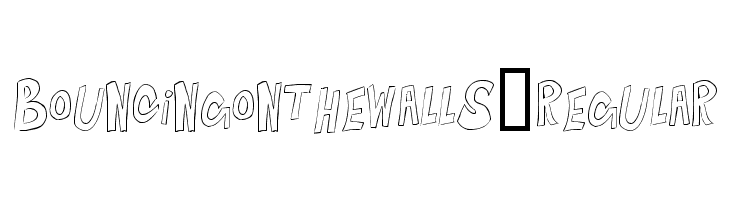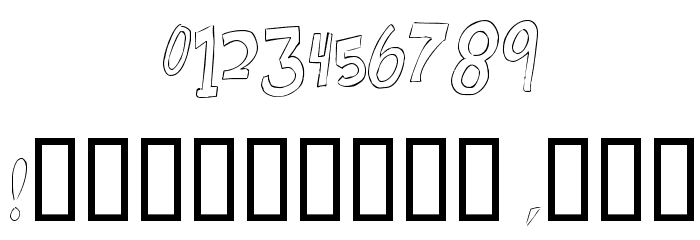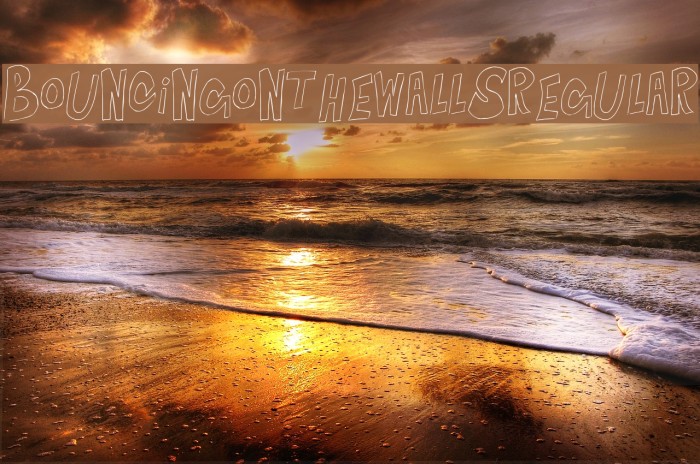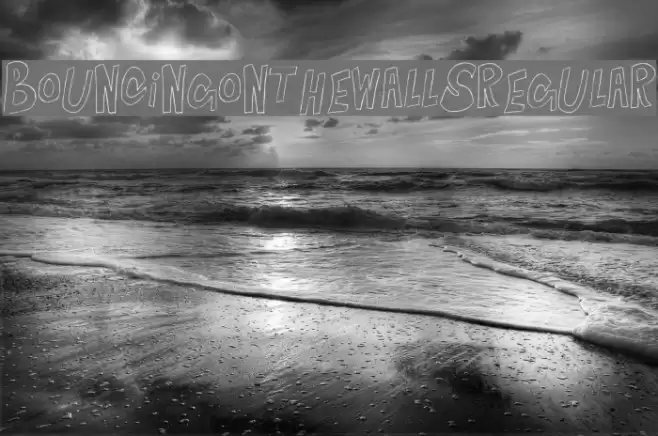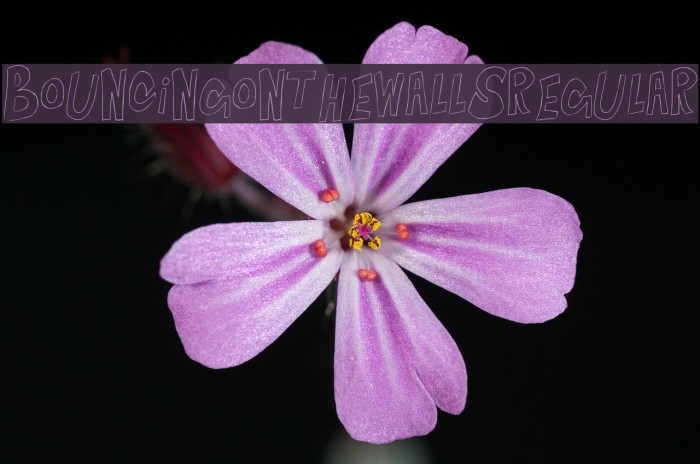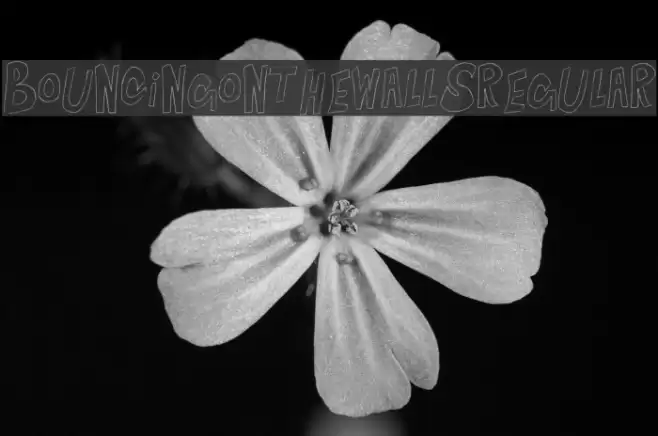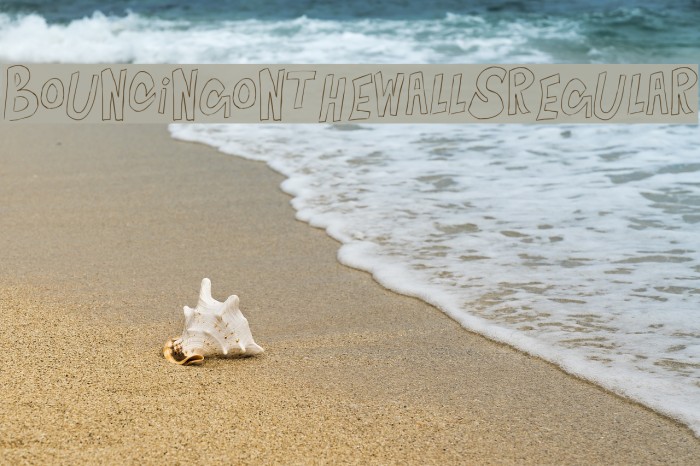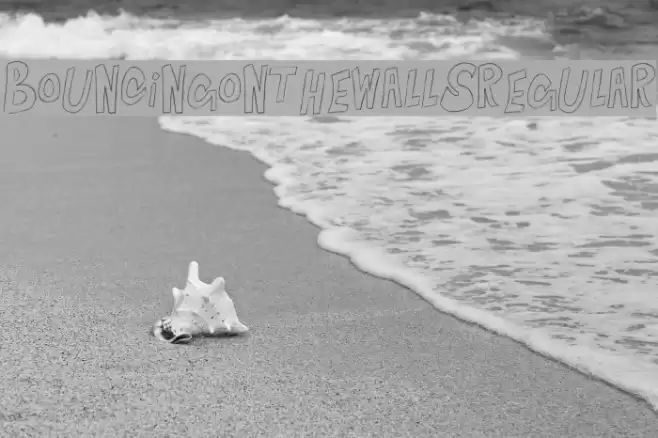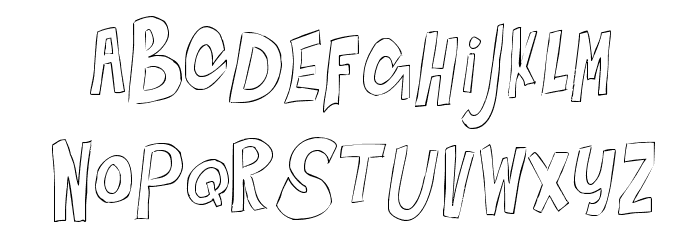
BouncingontheWalls-Regular Font
BouncingontheWalls-Regular Description
This playful and energetic font features a hand-drawn style with a quirky, bouncy appearance. The letters are slightly irregular, giving them a lively and informal feel. The uppercase and lowercase characters maintain a consistent style, with rounded edges and a sense of movement. The numbers follow the same playful design, making them suitable for creative projects. The font's unique personality makes it stand out, ideal for designs that require a fun and engaging look.
| Proposed Projects | Great for children's books, playful branding, party invitations, and creative posters. |